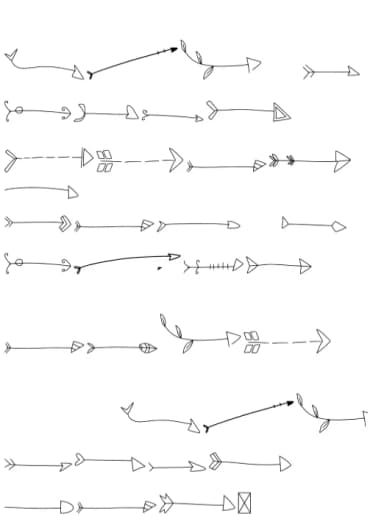
Playful and directional, Kids Arrow by CraftedType Studio works hard in any maker's toolkit. This dingbat font gives you a full set of arrow symbols that function as decorative elements, dividers, or standalone graphics depending on how your layout develops. The best uses often show up in wedding invitation stickers, DIY scrapbooking spreads, personalized t-shirt designs, and small product label stickers. Each arrow holds enough detail to feel intentional, yet keeps that handmade charm that makes designs feel personal rather than mass-produced or cookie-cutter.
The versatility lies in the weight and proportions. You can use these shapes as building blocks underneath text, stack them to create borders, or layer multiple arrows for visual rhythm and visual interest. Crafters who use cutting machines find the glyphs render cleanly at any size, from business cards to large signage. The symbol set works especially well when you need a quick directional indicator that doesn't require you to source or draw custom icons. Because these are true dingbat characters, you can type them directly into your projects without needing to import additional graphics.
A simple sans-serif partner handles body text and headlines nicely, letting the arrows take the spotlight. Grab Kids Arrow from Creative Fabrica and start bringing directional energy to your designs.
Kids Arrow Font is a versatile dingbats font that works for both headings and body text. Pair it with a contrasting sans-serif or serif font to add visual interest and a clear distinction between titles and body copy.